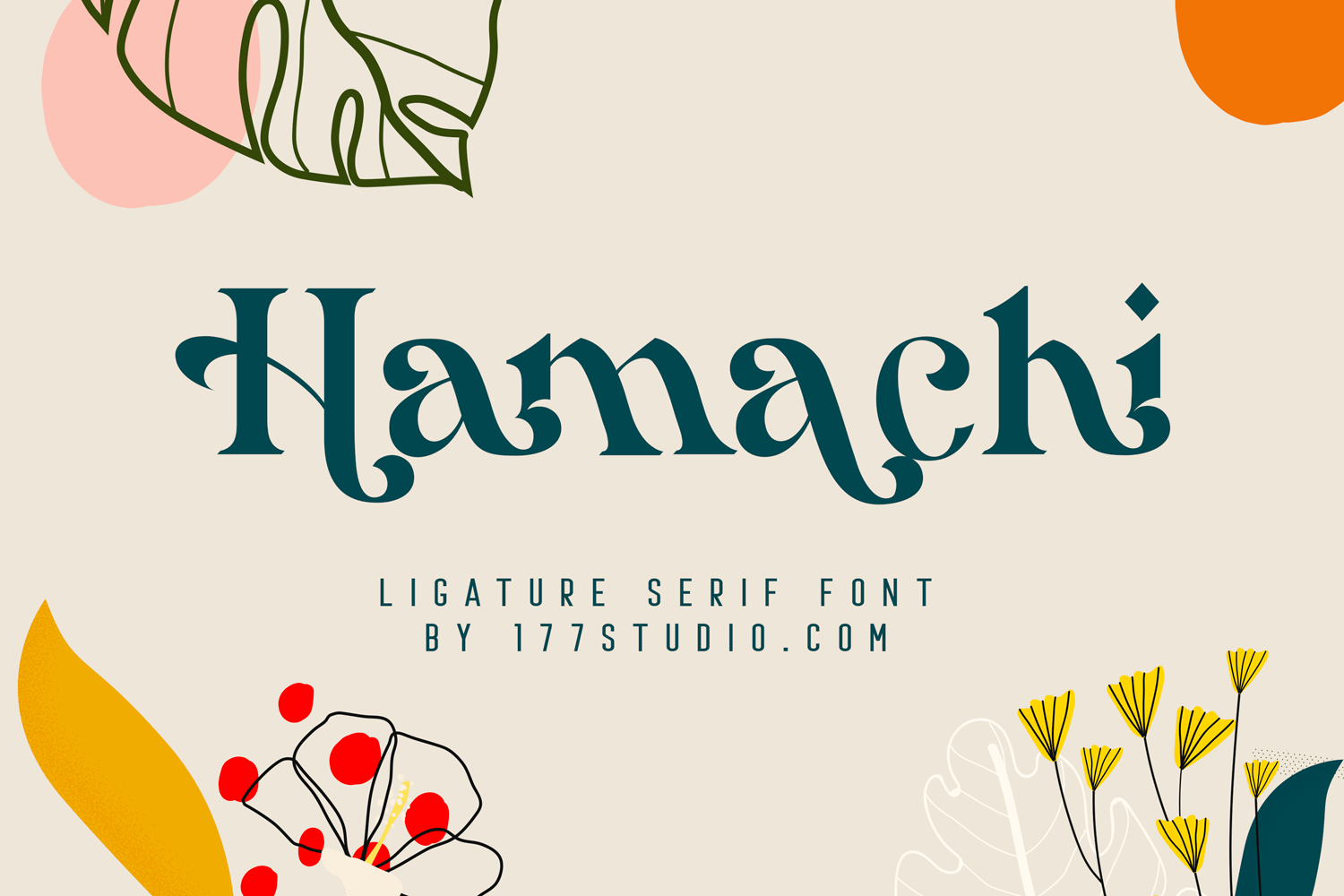
Hamachi Font
Hello Introducing, Hamachi - Ligatures modern Serif is an elegant, unique font that uses ligatures to smoothly link letters. This is a simple font but has a unique character, a combination of beauty, simple and elegant, will really help add nuance to your work, perfect for logos, invitations, headlines, etc.
To make it look more unique, here we prepared some ligatures:
Th ab af ag ah ai ak al am an ar db df dg dh di dk dm dn dr hb hf hg hh hi hk hl hm hn hr kb kf kg kh ki kk kl km kr lb lf lg lh li lk lm ln lr mb mf mg mh mi mk ml mm mn mr nb nf ng nh ni nk nl nm nn nr ra fj sa ss tb tf tg th ti tk tm tn tr ub uf ug uh ui uk um un ur
Include Fancy Style on Every Uppercase and Some Lowercase
Hamachi is also included full set of:
- Special Ligatures